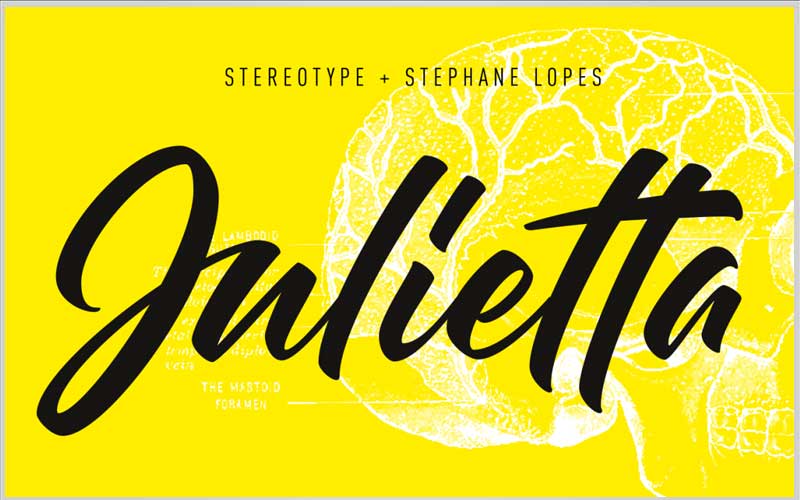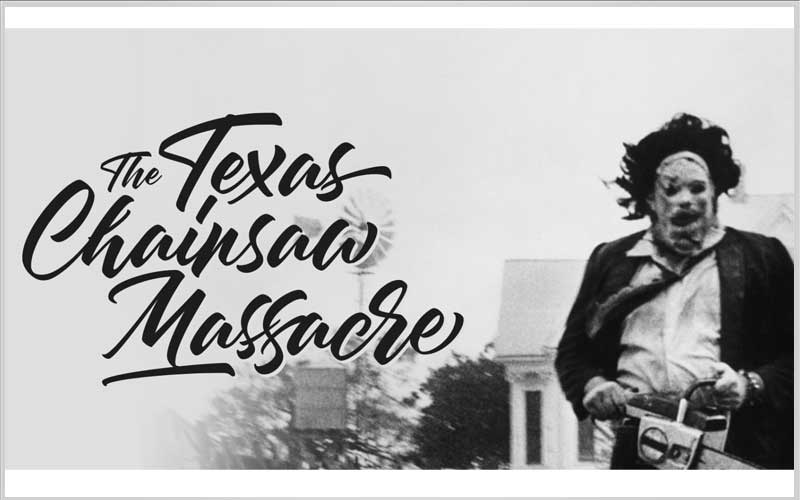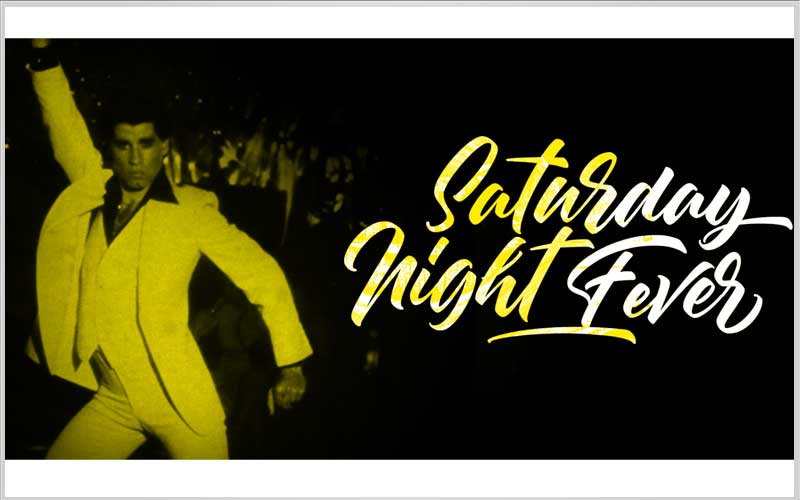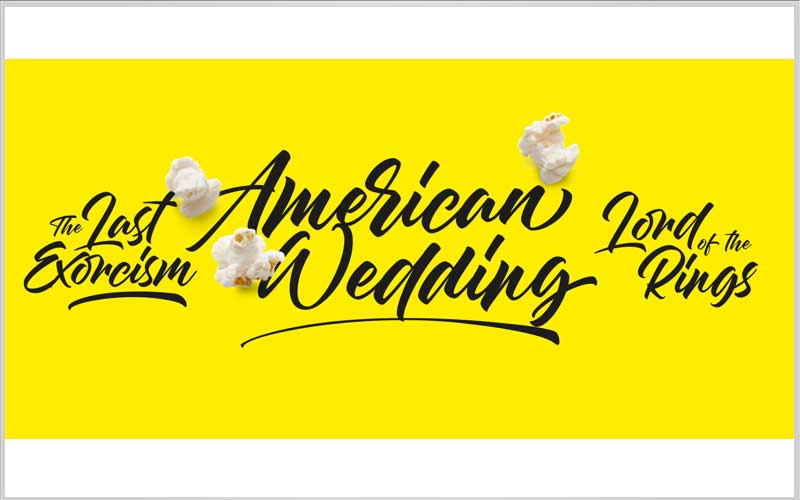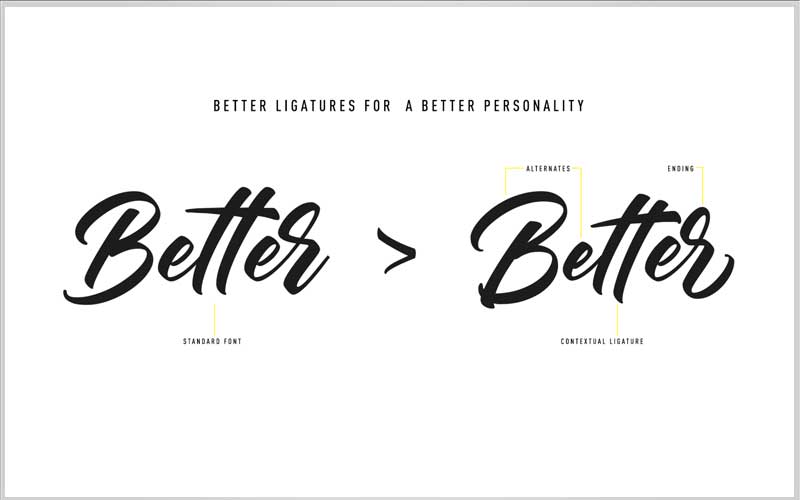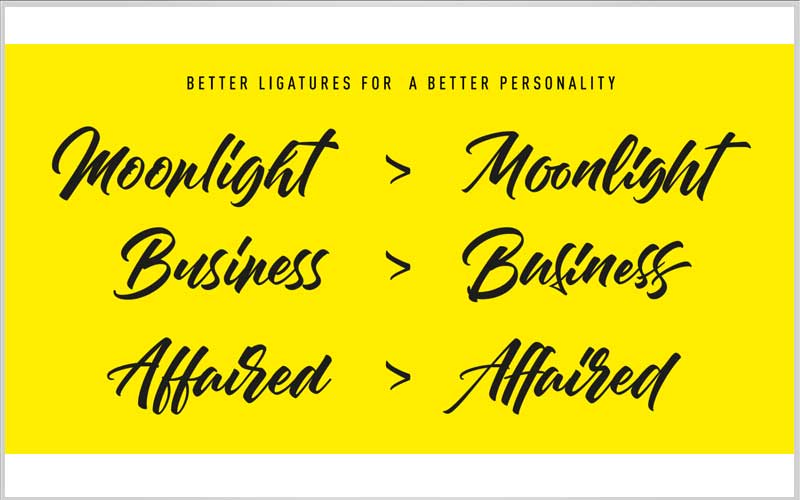
Julietta is a cool script font made from the lettering work of Stéphane Lopes. The full commercial version includes a huge set of 70 alternates, contextual ligatures and underlining.